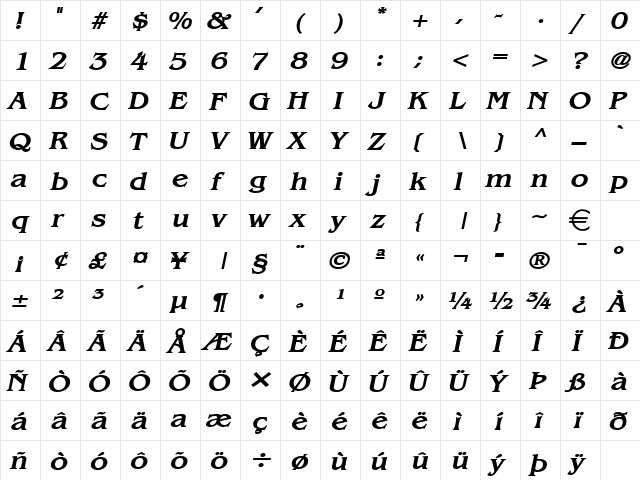
BangleWide BoldItalic Font Preview
Design Context for BangleWide Typeface
BangleWide takes a measured approach to typography — its balanced proportions and neutral character make it a reliable workhorse for both digital and print work. Its italic angle brings a sense of urgency and motion to the letterforms. The heavy weight commands attention and anchors typographic hierarchies.
Pro Tip: Try BangleWide for annotation and caption copy alongside an upright companion — the contrast in angle creates a dynamic but ordered typographic system.